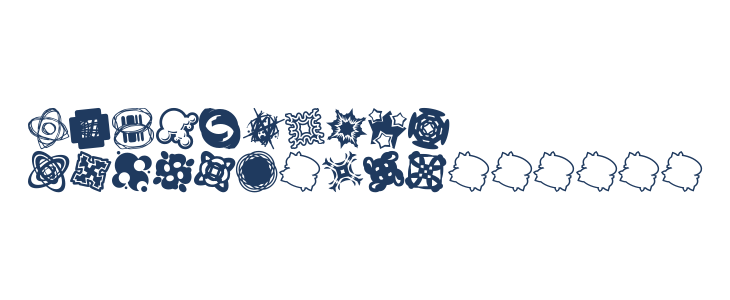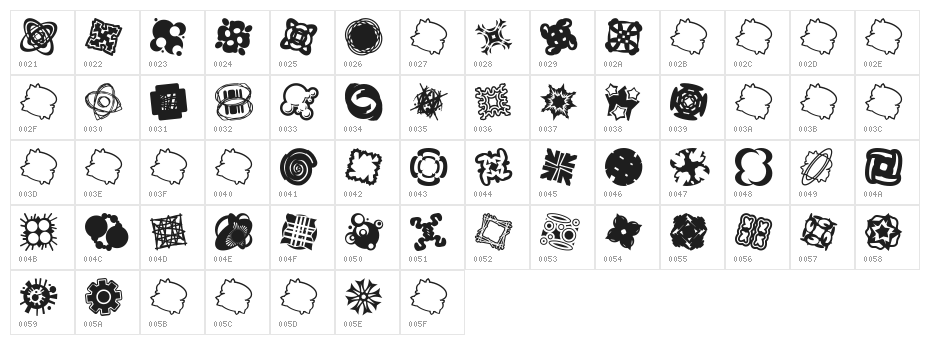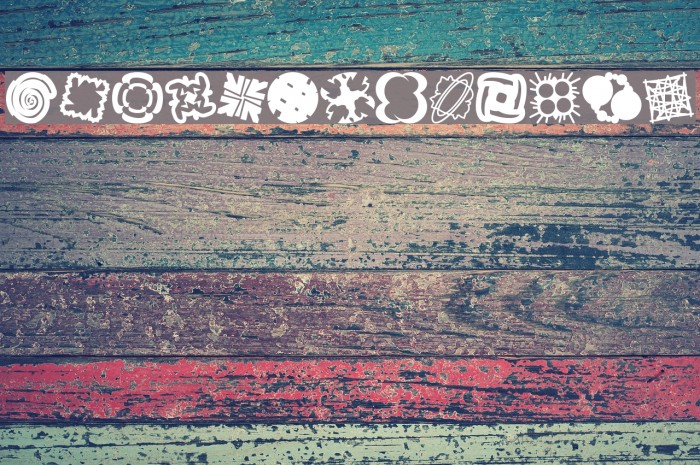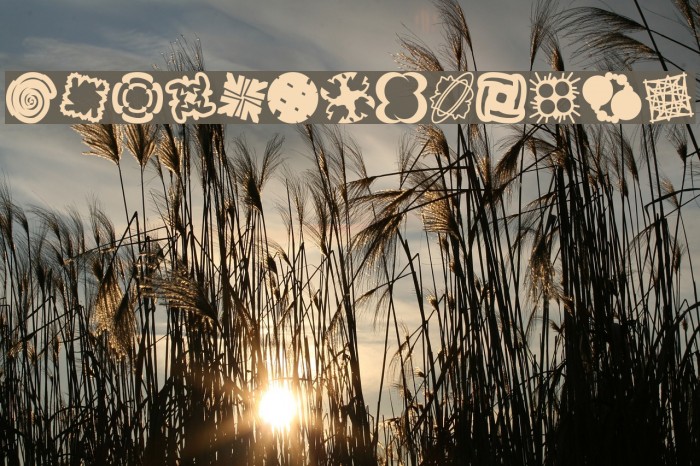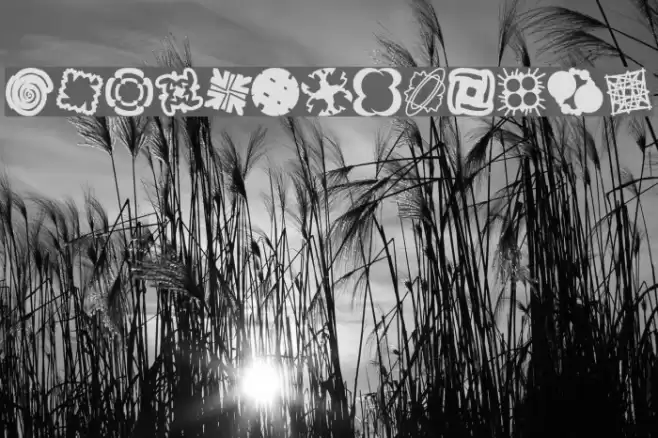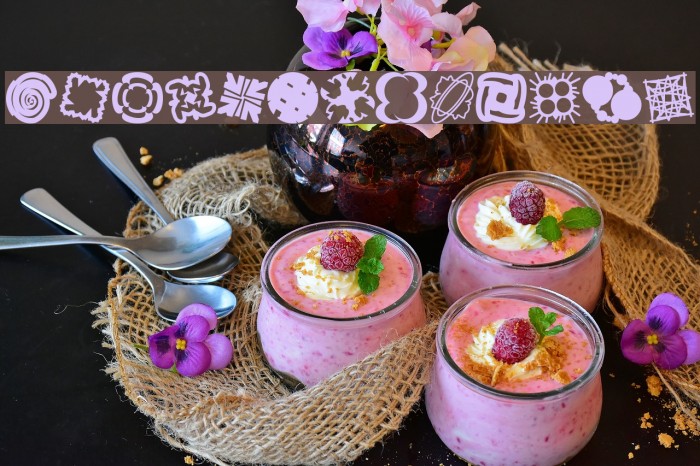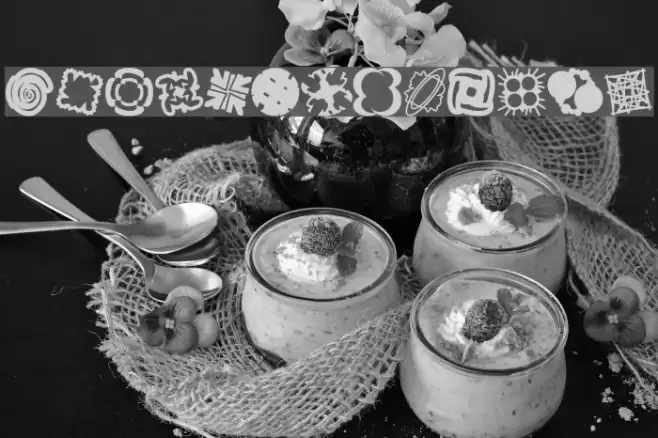
Patternalia Font
Patternalia Description
A collection of highly decorative, abstract, and geometric glyphs, each character represented by a unique pattern or symbol rather than traditional alphanumeric forms. The designs are bold, filled or outlined, and vary widely in complexity and shape, evoking a playful and experimental visual style.
| Overall Style | Decorative, Abstract, Playful |
| Use Case | Decorative accents, branding, creative projects, non-textual communication |
| Proposed Projects | Posters, digital art, backgrounds, branding elements, scrapbooking, creative dividers, and ornamental design. |